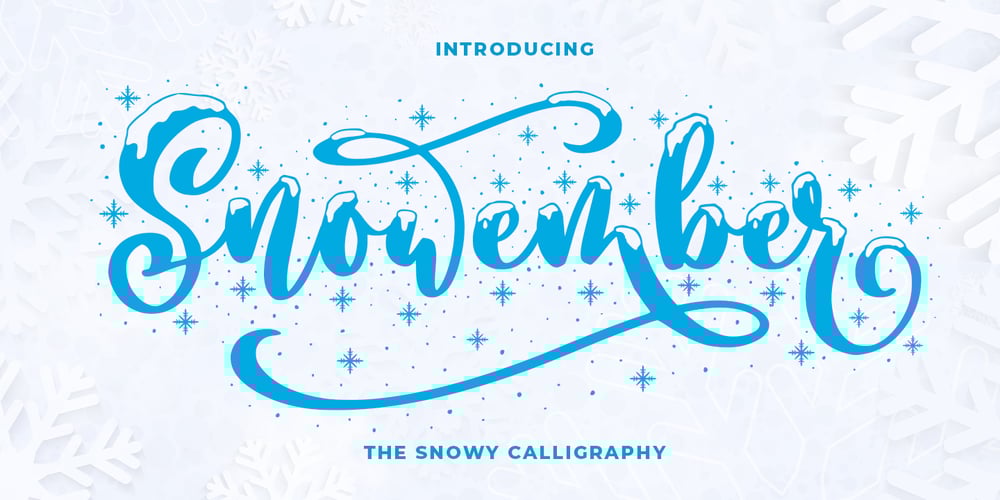
Snowember Font Family was designed by Abo Daniel and published by Abo Daniel. Snowember contains 1 styles and family package options. SNOWEMBER is a carefully stunning modern calligraphy with snowy effect. It is great for titling, headline, logo, t-shirt designs, mugs, tote bag designs, cards, banners, social media, and anything of craft projects.Features:- Uppercase- Lowercase- Numeral- Punctuation- Alternates- Multilingual- PUA encodedThis font is very worthy to add to your collectionregards,Abo Daniel Studio